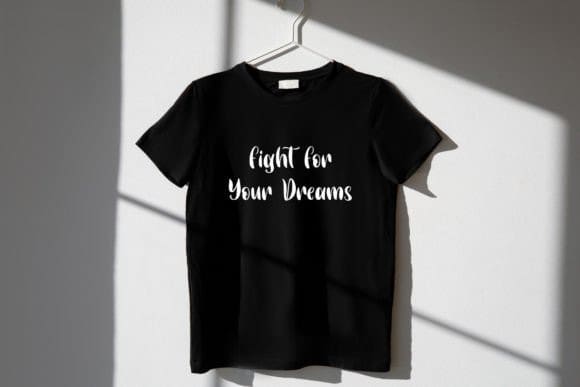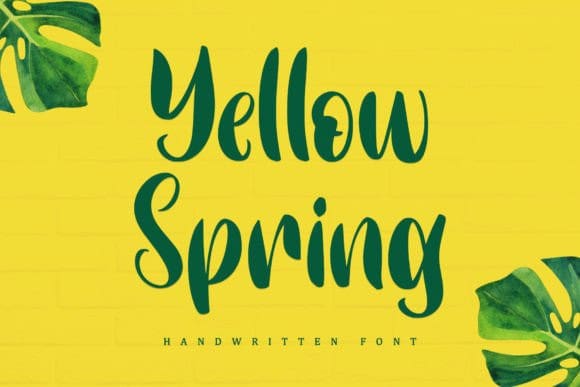
Yellow Spring Font
Yellow Spring Font is a fresh and vibrant handwritten font that radiates a cheerful and youthful energy. Its organic and imperfect shapes create a natural and authentic look, making it perfect for logos, social media graphics, and packaging designs that aim to convey a fun and friendly vibe.